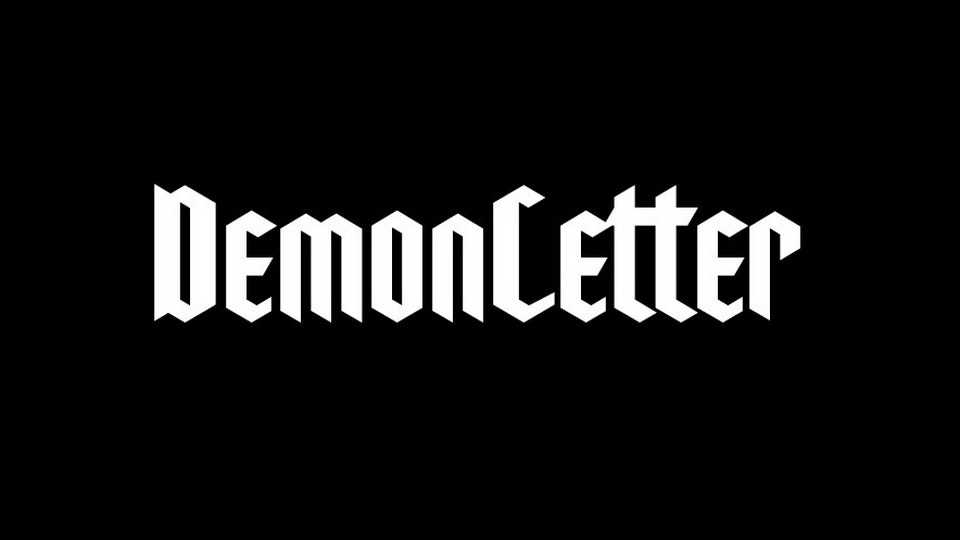
Download Demon Letter font, a modern blackletter tyeface based on the Demon (UK) and Pentagram (US) logos. Demon Letter font is suitable for logos, posters, music bands branding, games, prints and other authentic designs.
Designer: Matt Smith